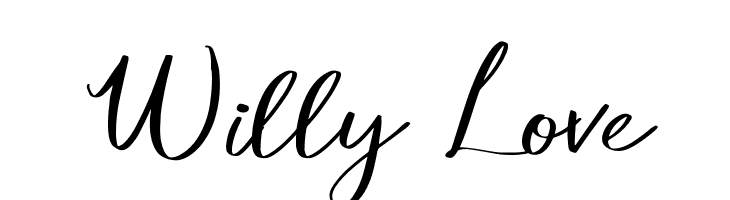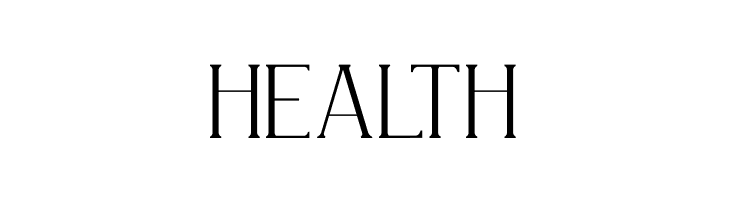
An elegant, high-contrast serif font with tall, slender letterforms.
A bold, handwritten script font with a smooth, flowing style.
A bold, modern font with thick, uniform strokes and tight spacing.
A bold, angular font with a graffiti-inspired style.
A playful, handwritten font with irregular strokes and a casual vibe.
A bold, expressive script font with a modern, handwritten style.
A lively and elegant script font with fluid, cursive strokes.
A bold, energetic script font with a dynamic, handwritten style.
A flowing, elegant script font with smooth curves and stylish flourishes.